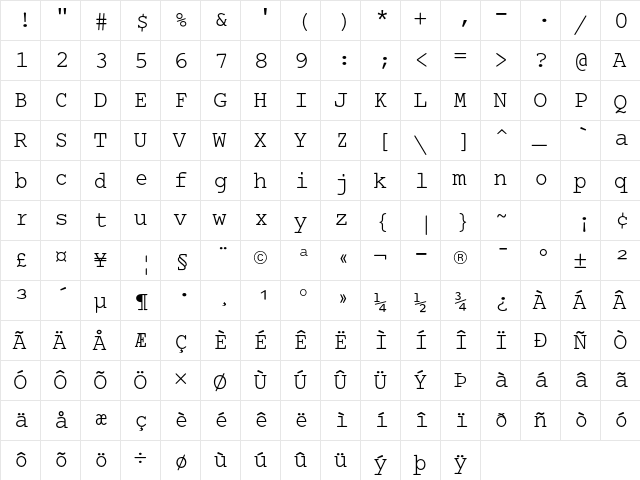
Courier Twelve MT Std Regular
Design Context for Courier Twelve MT Std Typeface
Courier Twelve MT Std brings the precise, column-aligned rhythm of monospaced typography to designs that value technical clarity and systematic order.
Pro Tip: Use Courier Twelve MT Std with slightly increased line-height for extended reading — fixed-width spacing can feel dense in longer passages without extra breathing room.